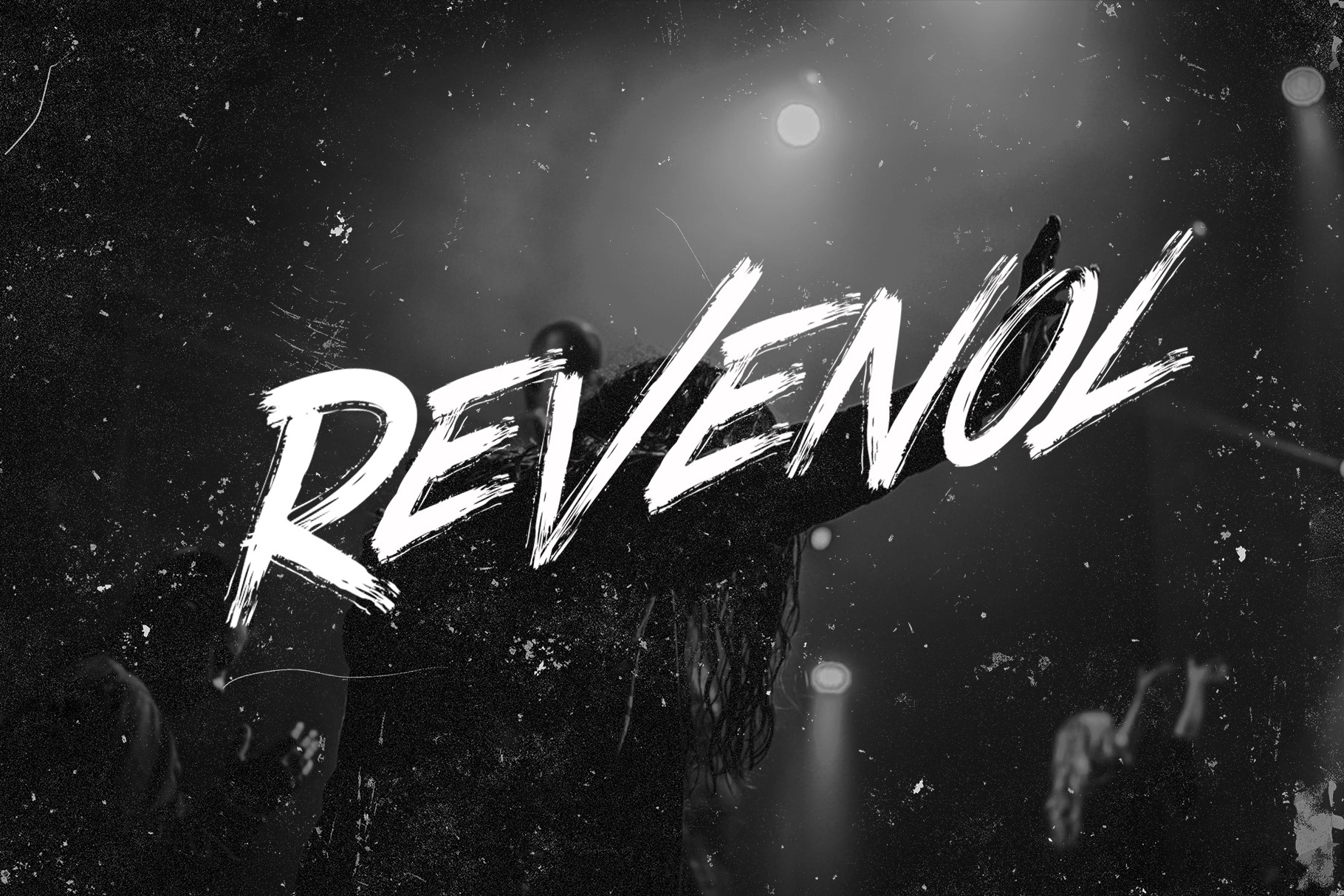
Ravenol Font brush
Introducing our new product called Ravenol Font brush . I made this brush lettering reference. Ravenol Font brush are great for logos, tshirt designs, badges, headlines, signatures, packaging, and more.